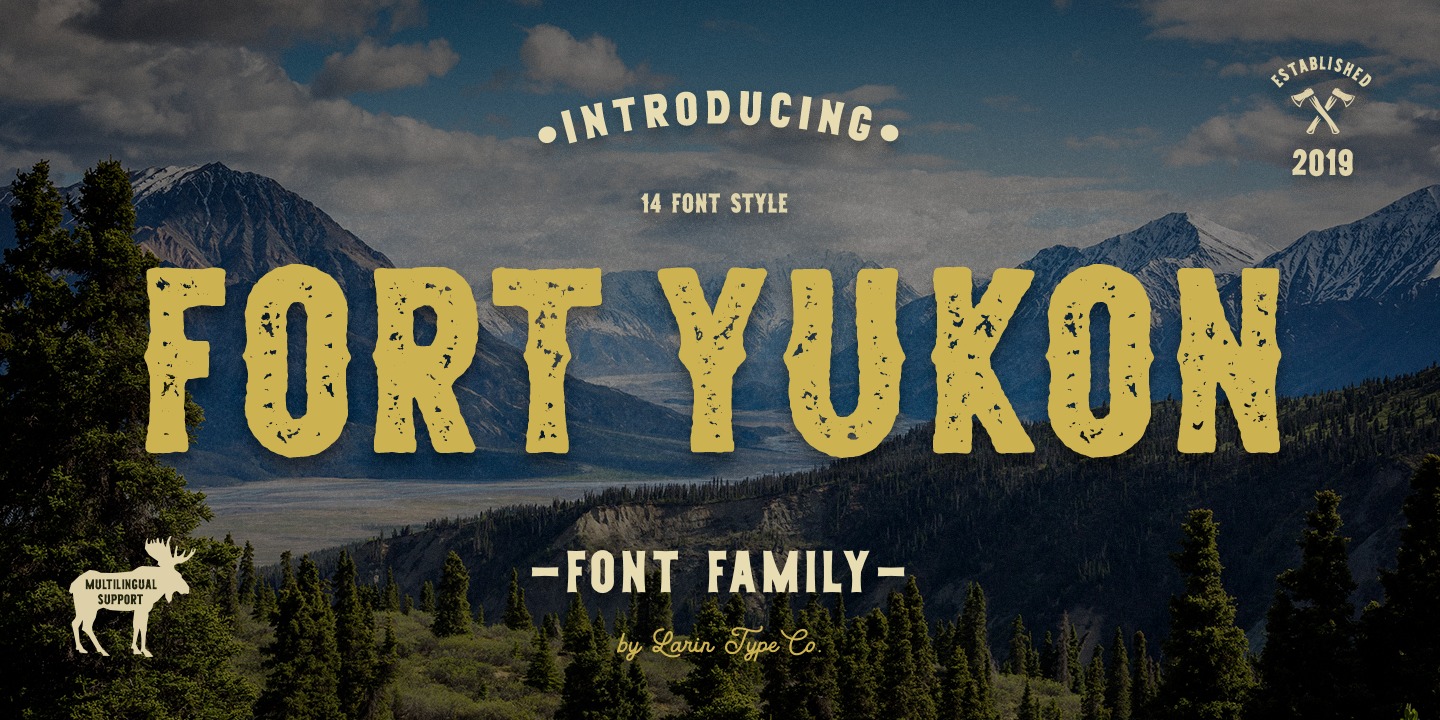
Fort Yukon Font Family
Fort Yukon Font Family is a versatile font designed to adapt beautifully across different design styles, offering dependable readability and balance. Inspired by wildlife, Fort Yukon is a bold and authentic vintage family font. This will inspire any design project that needs a vintage style. This font family is composed of 14 styles which perfectly complement each other. You can use them to create a logo or use for your business, branding, t-shirts, book covers, stationery, marketing, blogs, magazines and more.